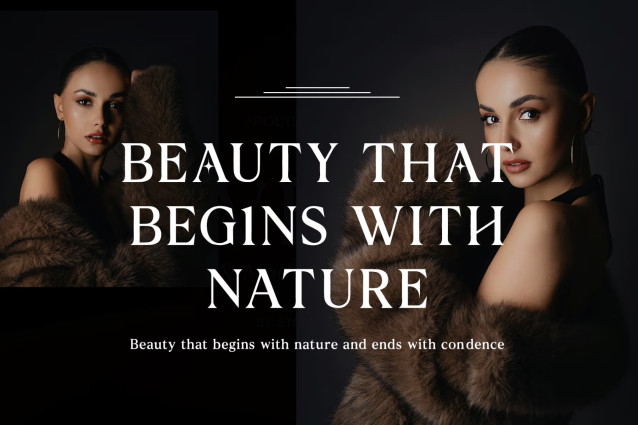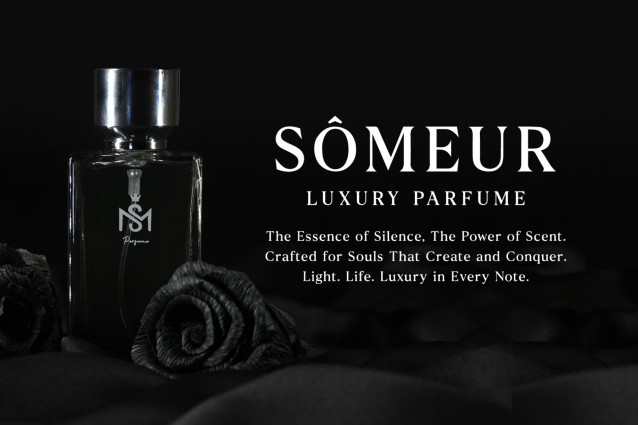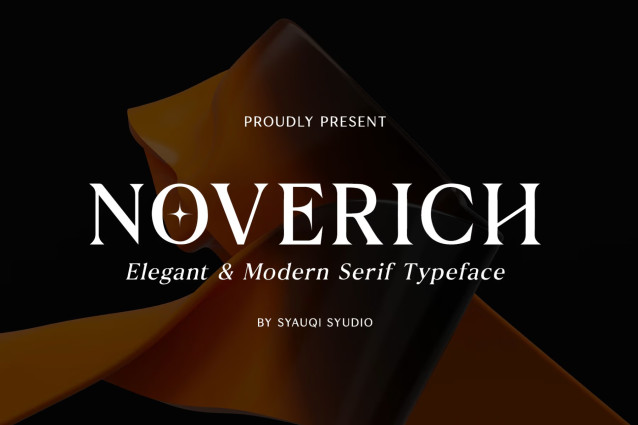
Noverich Font
Noverich Font, an elegant modern serif typeface that embodies both luxury and clarity. Designed with refined high-contrast strokes, sharp terminals, and graceful curves, Noverich strikes a perfect balance between timeless sophistication and contemporary design trends.
Its versatile elegance makes it ideal for editorial headlines, branding projects, fashion magazines, logos, invitations, luxury packaging, and more. Whether you’re creating a bold visual identity or a refined typographic layout, Noverich delivers strong character and high readability across print and digital platforms.
With a full set of uppercase and lowercase letters, alternates, punctuation, and multilingual support, Noverich is crafted for designers who demand both style and functionality.
Perfect for:
Luxury branding • Editorial design • Fashion & beauty • Wedding stationery • High-end packaging • Minimalist logos • Magazine titles
Let Noverich be the voice of your next sophisticated project — a font that whispers elegance and speaks volumes.